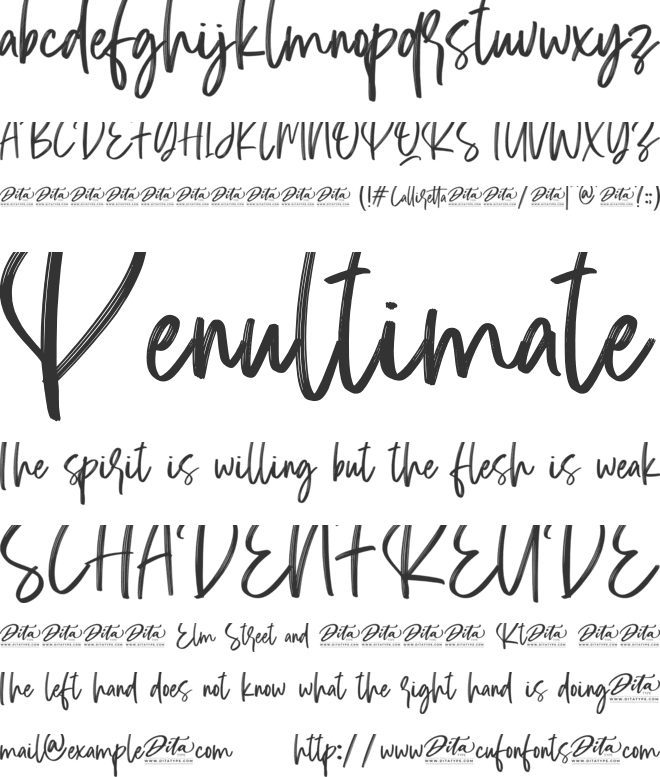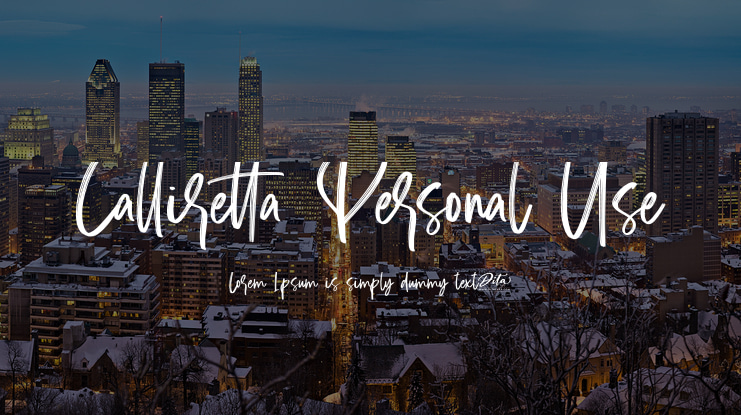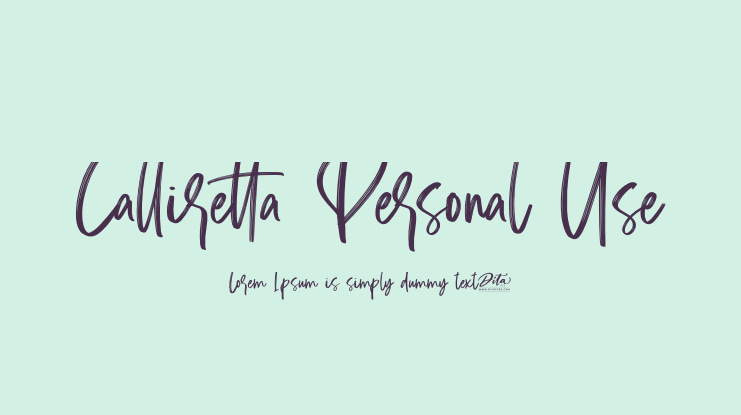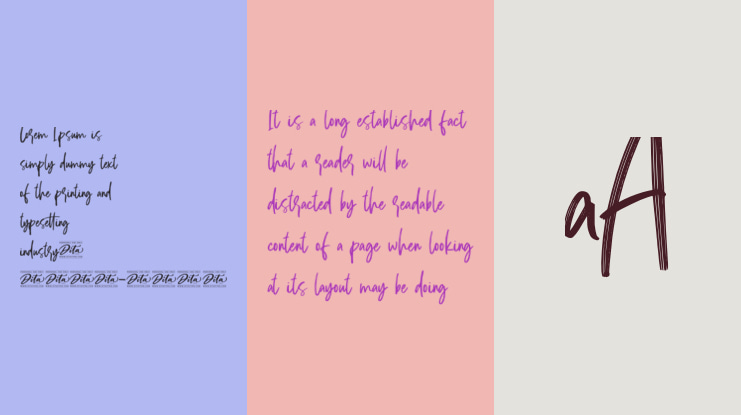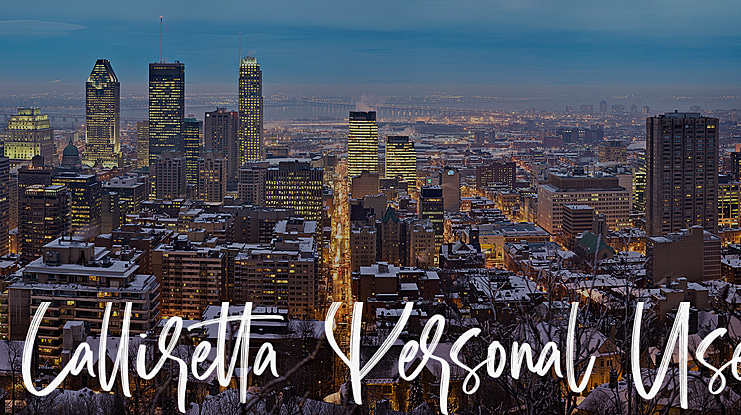
Calliretta is a modern handwritten font. With a classy and natural handwritten style, it brings a classy and chic typeface. Calliretta is best used for weddings, branding, logotype, and quotes.